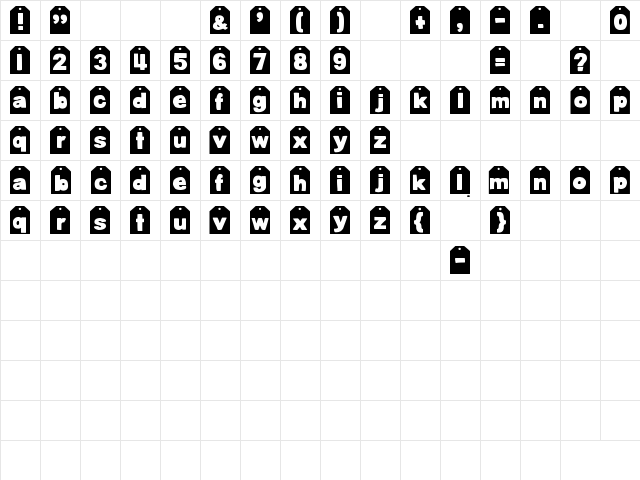
DJB TAGGED Regular
Design Context for DJB TAGGED Typeface
DJB TAGGED is a composed and adaptable typeface that performs quietly and consistently across a wide range of design contexts.